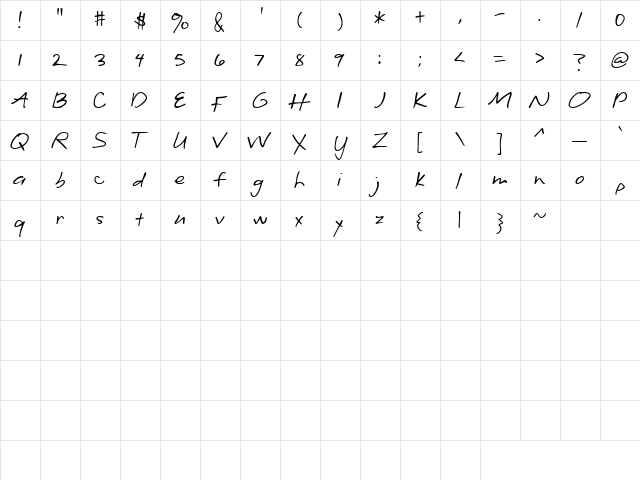
CK Quick Regular
Design Context for CK Quick Typeface
CK Quick takes a measured approach to typography — its balanced proportions and neutral character make it a reliable workhorse for both digital and print work.
Pro Tip: Use CK Quick in both headline and body roles to test its range before committing to a single application.